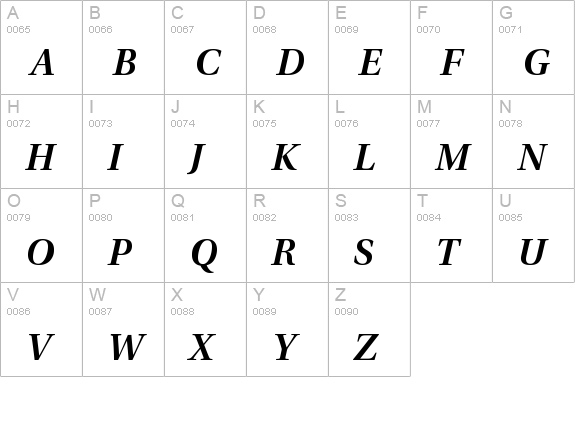
Utopia Std Semibold Subhead Italic Font Details
Utopia Std Semibold Subhead Italic is a sub-bold, structured, italic variant in the Utopia typeface family \xE2\x80\x94 well suited to sub-headlines and emphasised passages.
Utopia Std Semibold Subhead Italic font is a stylish and sophisticated typeface that exudes elegance and professionalism. With its bold yet graceful strokes, this font is perfect for creating attention-grabbing subheadings and titles that demand to be noticed. This font is inspired by the timeless beauty of Utopia, a utopian society where everything is perfectly balanced. It captures the essence of this ideal world with its sleek and refined design, making it the perfect choice for designers and creatives who strive for perfection in their work. One of the best features of Utopia Std Semibold Subhead Italic font is that it is freely available to download at FontsMarket.com. This means that anyone can enjoy the beauty and versatility of this font without any cost. Whether you're a professional designer or a casual enthusiast, you can easily access this font and use it to enhance your projects. The versatility of Utopia Std Semibold Subhead Italic font allows it to be used in a wide range of applications. From print materials such as brochures, magazines, and posters, to digital designs like websites, social media graphics, and presentations, this font will elevate your designs and give them a touch of sophistication. With its clean lines and subtly slanted italics, Utopia Std Semibold Subhead Italic font adds a touch of modernity to any design. It effortlessly combines classic elegance with a contemporary twist, making it a truly unique and eye-catching choice. Whether you're designing for a corporate brand, a fashion magazine, or an upscale restaurant, Utopia Std Semibold Subhead Italic font will bring a sense of refinement and professionalism to your projects. Its bold and distinctive style will make your headlines stand out and leave a lasting impression on your audience. So, if you're looking for a font that embodies the perfect balance of elegance and modernity, look no further than Utopia Std Semibold Subhead Italic font. Download it for free at FontsMarket.com and start creating stunning designs that will captivate your audience.